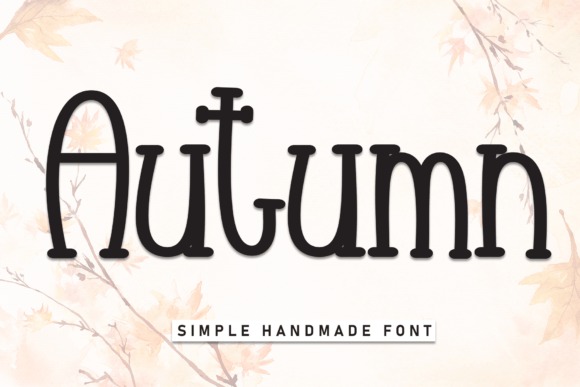
Introducing Autumn Font: A Charmingly Playful Display Typeface
I’ll never forget the moment I stumbled upon the perfect font for a wedding invitation project. I was on a tight deadline, and my client wanted something that would make their special day announcement truly unforgettable. As I scrolled through my font library, I came across Autumn Font, and it was love at first sight! ✨ With its whimsical blend of elegance and playfulness, I knew I had found the one.
A Personal Review: What I Love About Autumn Font
Here’s what makes Autumn Font a standout in my font collection:
- ✨ Sweet and friendly nature: Autumn Font has a unique ability to convey warmth and approachability, making it perfect for designs that require a personal touch.
- ✅ Highly versatile: From wedding invitations to greeting cards, this font adapts seamlessly to various design contexts.
- 🎉 Upbeat and heartwarming character: Autumn Font injects a dash of fun and joy into any design, making it ideal for creative projects that require a playful twist.
While Autumn Font is an excellent choice for many design projects, there are a few things to keep in mind:
- 🤔 Limited use in formal contexts: Due to its playful nature, Autumn Font might not be the best fit for formal or corporate designs.
- ⚠️ Requires attention to spacing: To ensure optimal readability, be mindful of letter spacing, especially when using the font at smaller sizes.
The Story Behind Autumn Font
Autumn Font was designed with the intention of creating a unique, handcrafted display typeface that would bring a touch of joy to various design projects. Inspired by the whimsical nature of handwritten scripts, Autumn Font combines elegance and playfulness to create a truly one-of-a-kind font.
| What is Autumn Font best suited for? | Autumn Font is perfect for designs that require a touch of whimsy and playfulness, such as wedding invitations, greeting cards, and creative projects. |